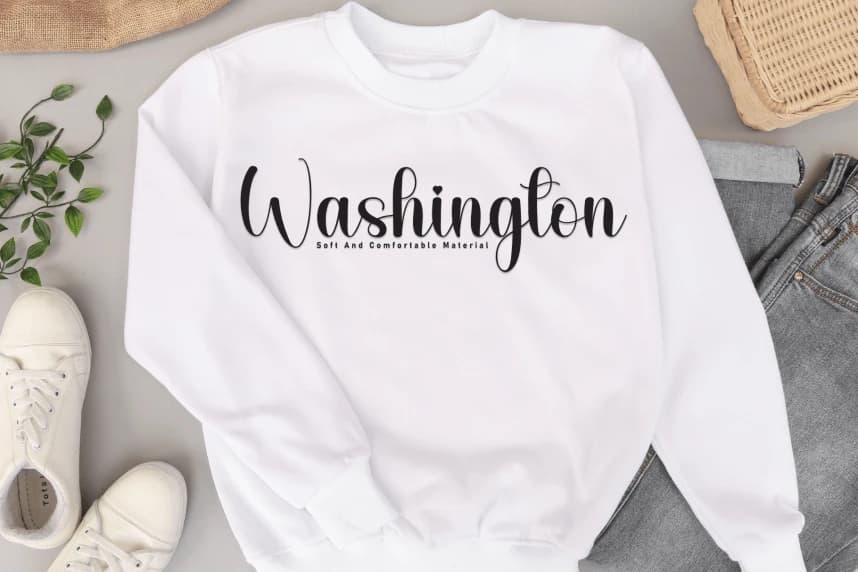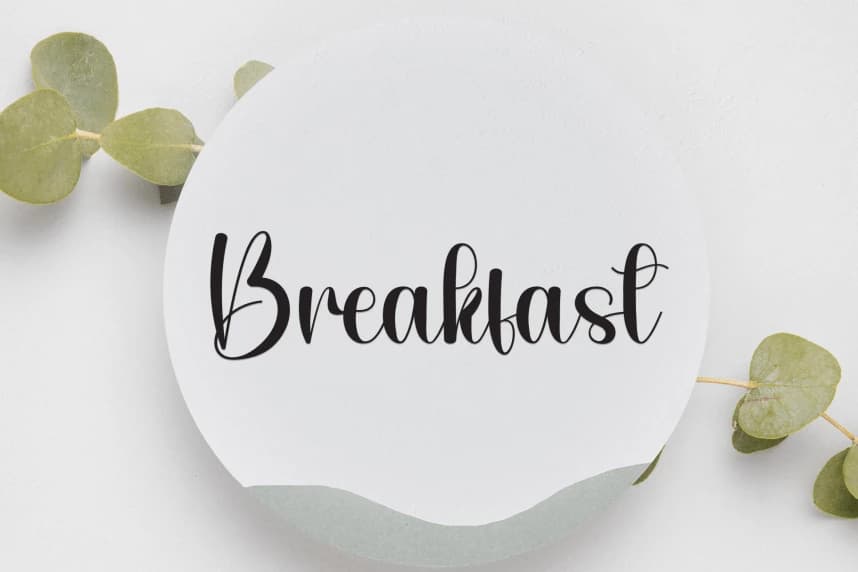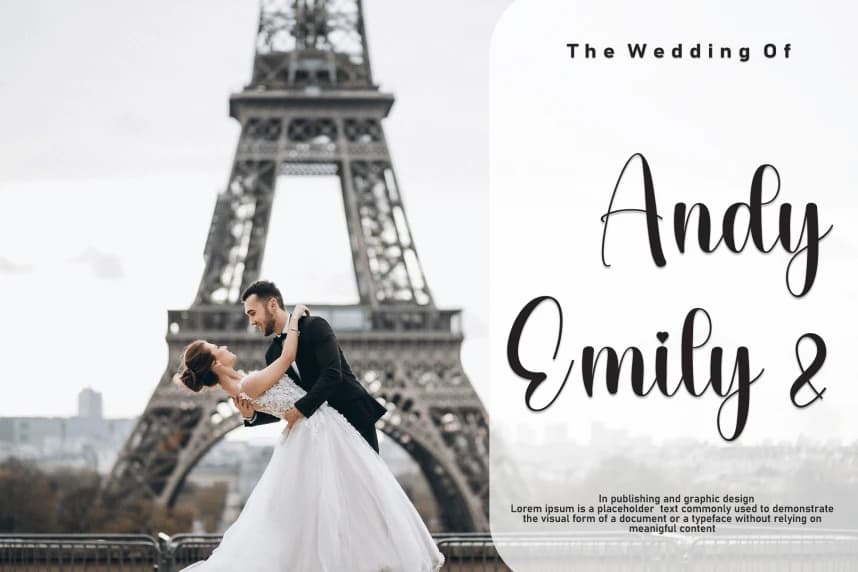
Monogram – New Style Handwritten Font
Monogram – New Style Handwritten Font is a sweet and friendly handwritten display font. Cute and fun, this font is ideal for writing wedding invitations, cards, or any other design that might need a playful touch!